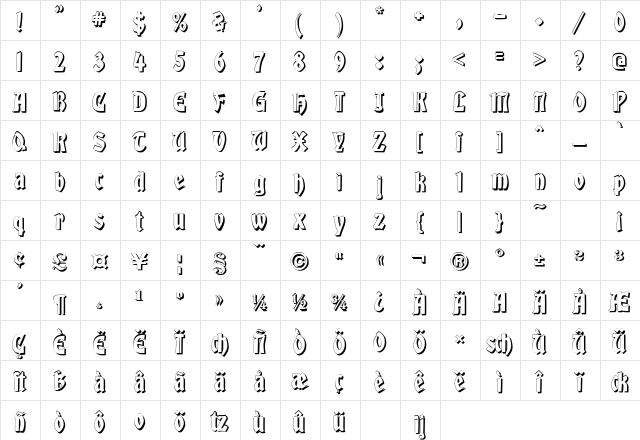
Globus Shadow Medium Font Preview
Globus Shadow Medium
Globus Shadow Medium Font Details
Design Context for Globus Shadow Typeface
Globus Shadow is built around its visual character rather than neutral utility — its distinctive forms are designed to make an impression at display sizes.
Font Pairing: Pair with a clean neutral sans-serif for body copy to let Globus Shadow's character lead without overwhelming the composition.
Pro Tip: Use Globus Shadow exclusively at display sizes — it was designed to be seen, not read at length. Let a neutral companion handle body copy.